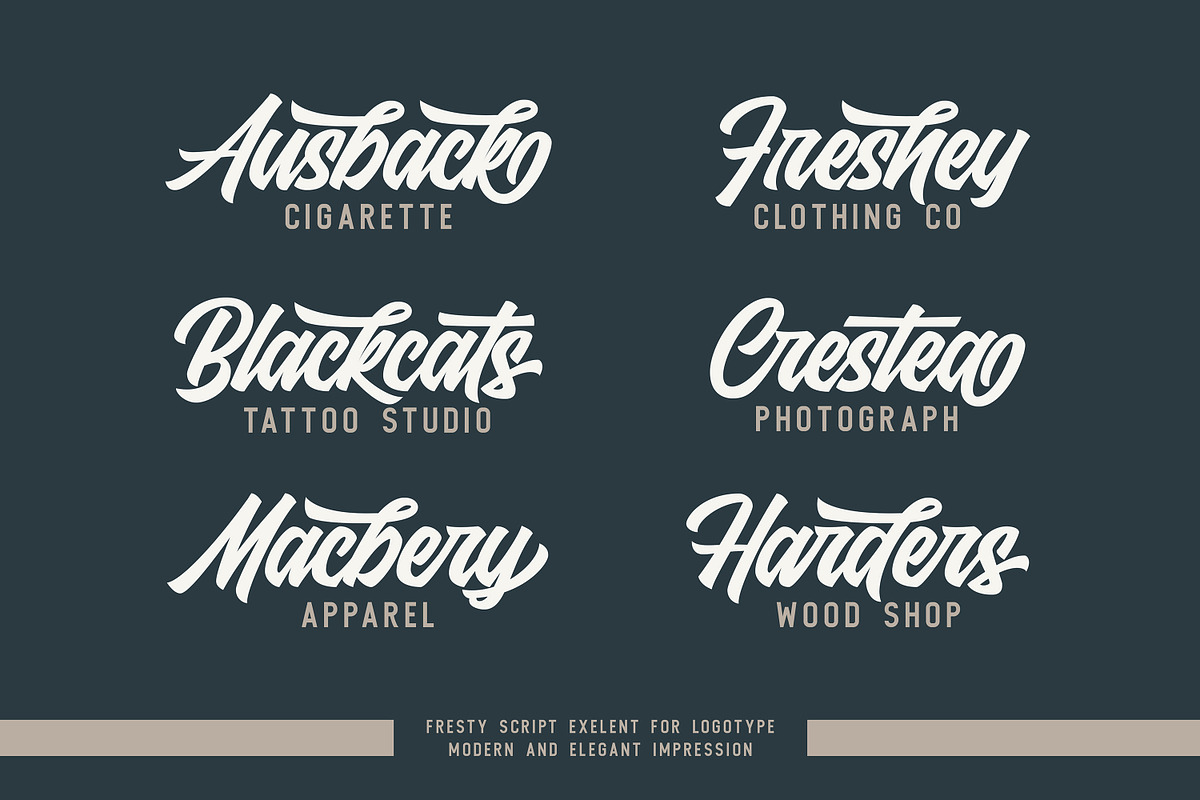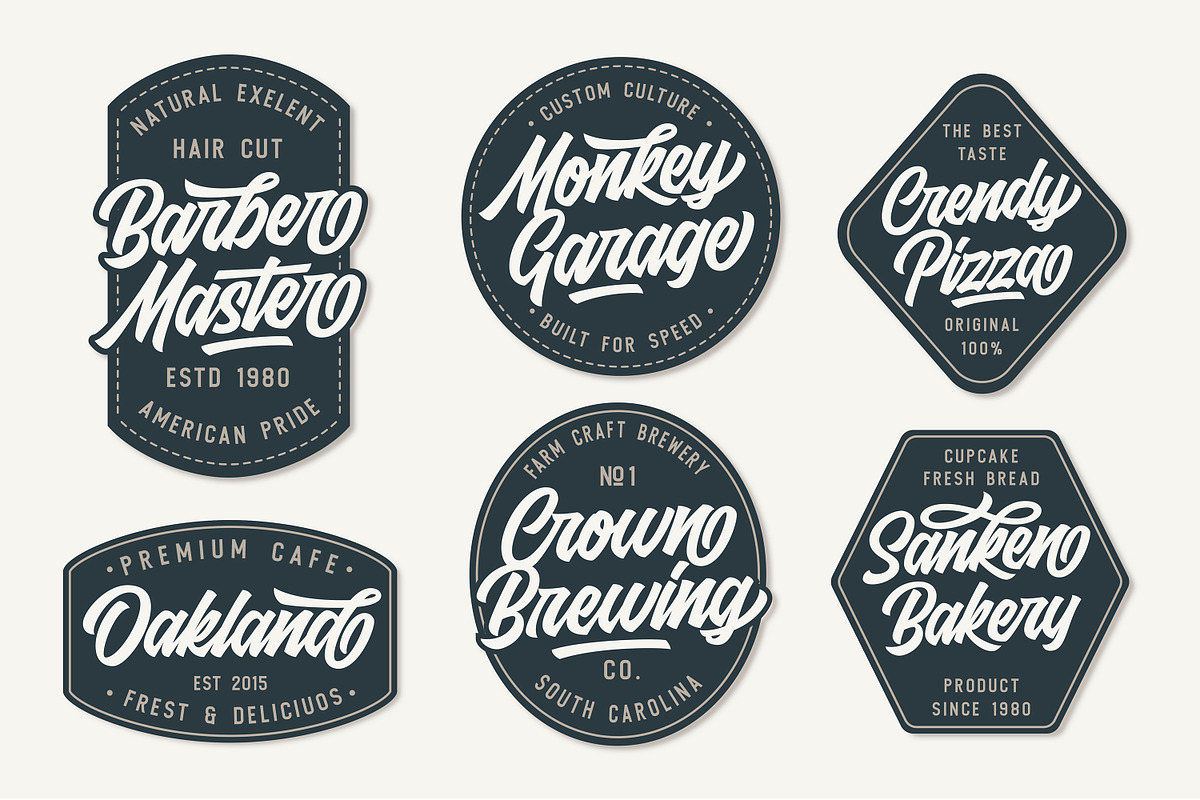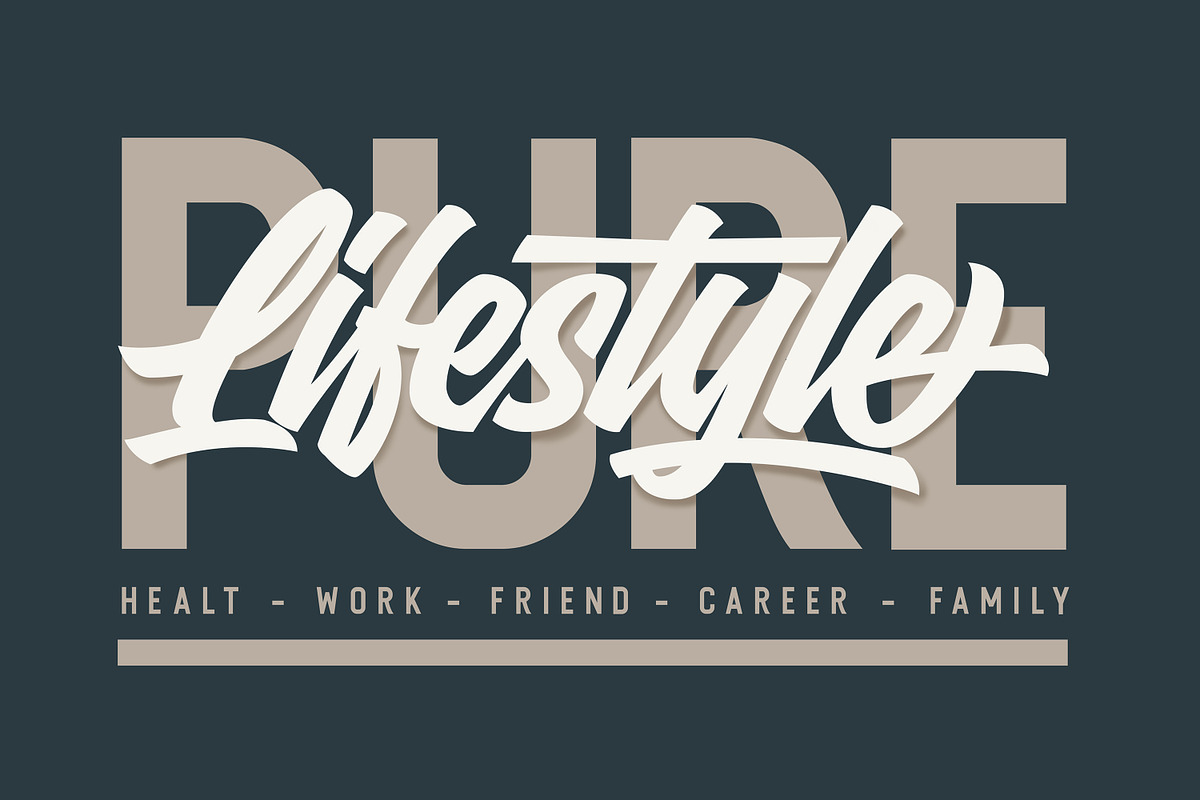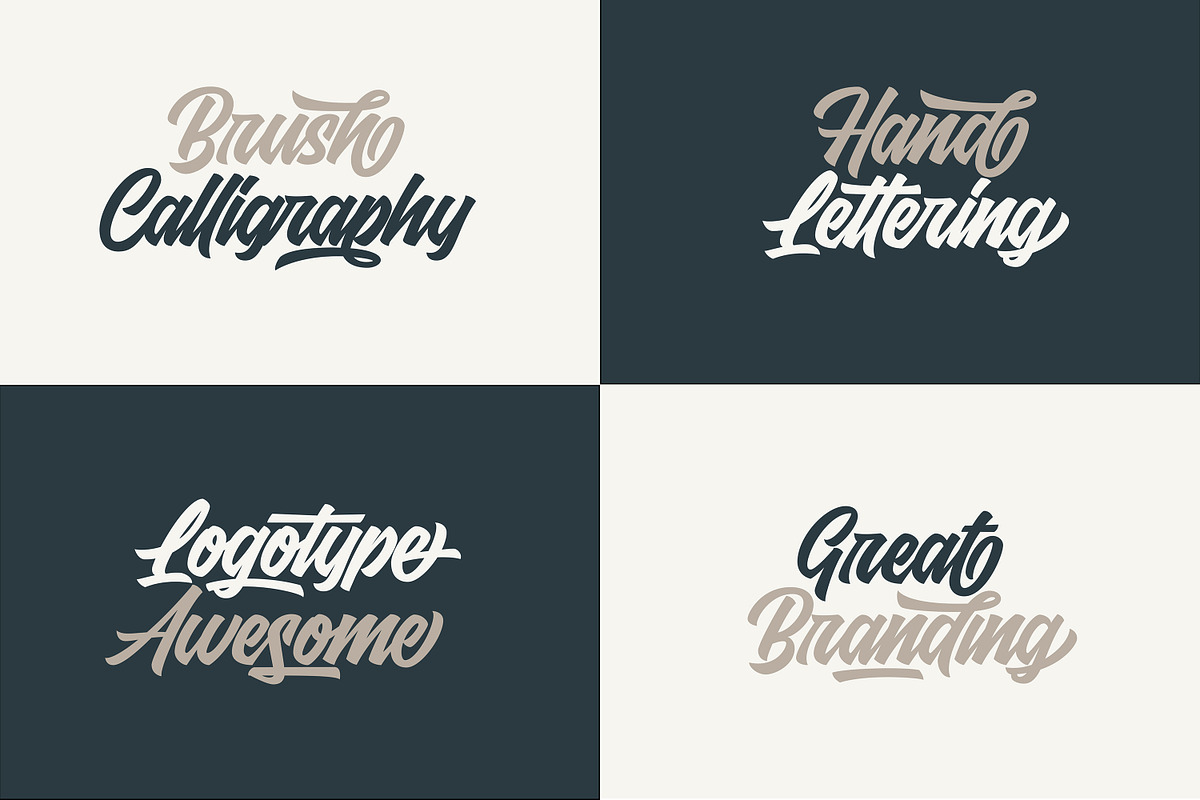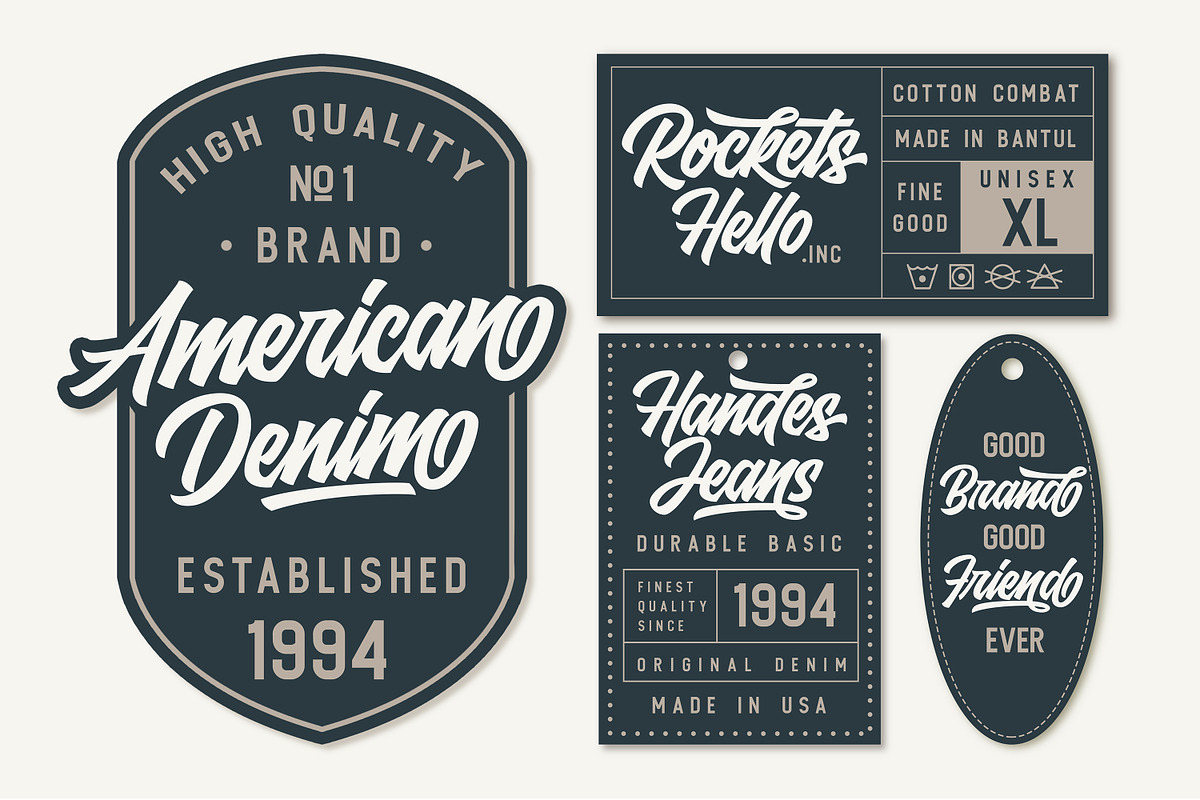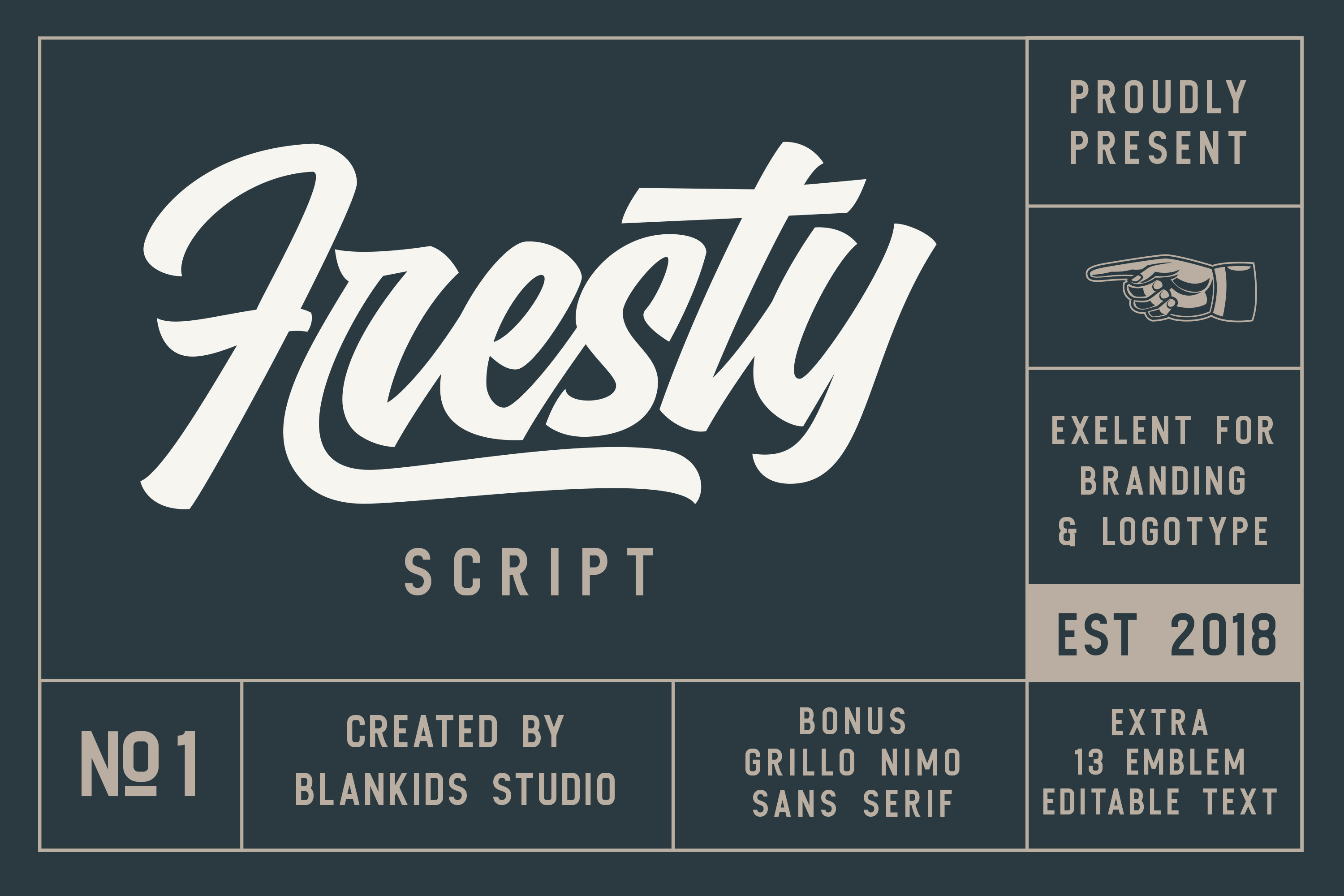
FRESTY SCRIPT & GRILLO NIMO SANS SERIF
Fresty is awesome for branding and logotype, Fresty has the impression of modern, trendy and elegant. I also create Grillo Nimo sans serif for a combination and i added extras 13 different emblems / badges with editable text.
Fresty and have 376 Glyphs with PUA encoded and many alternative character & opentype featured so you can mix and match like a you want. Fresty include 22 Mutilingual Support (Afrikaans , Albanian , Catalan , Czech , Danish , Dutch , English , Estonian , Finnish , French , German , Hungarian , Icelandic , Italian , Norwegian , Polish , Portugese , Slovak , Slovenian , Spanisch , Swedish , Zulu)